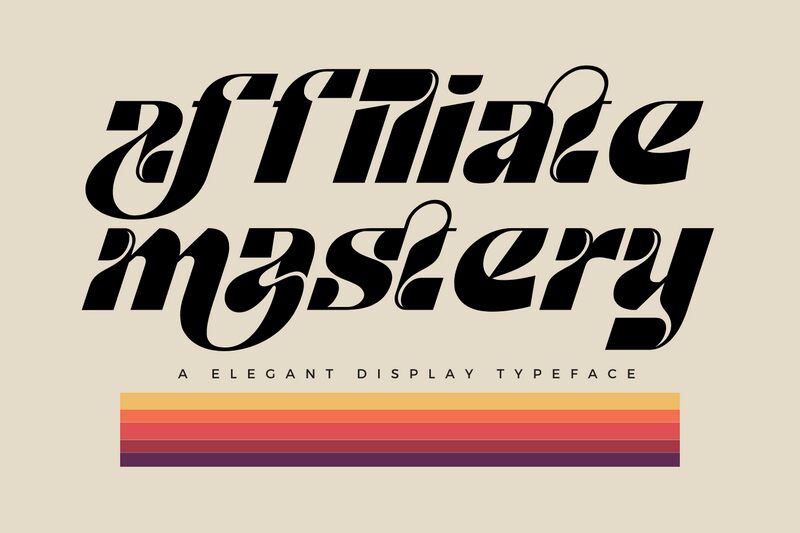
Affiliate Mastery font designed by 177Studio is a display typeface that showcases retro style and bold weight. Inspired by modern geometric influences, it features a clean design with smooth curves and sharp corners. Its high contrast sections make for a strong presence when reading the text offering it an unusually attractive appearance.